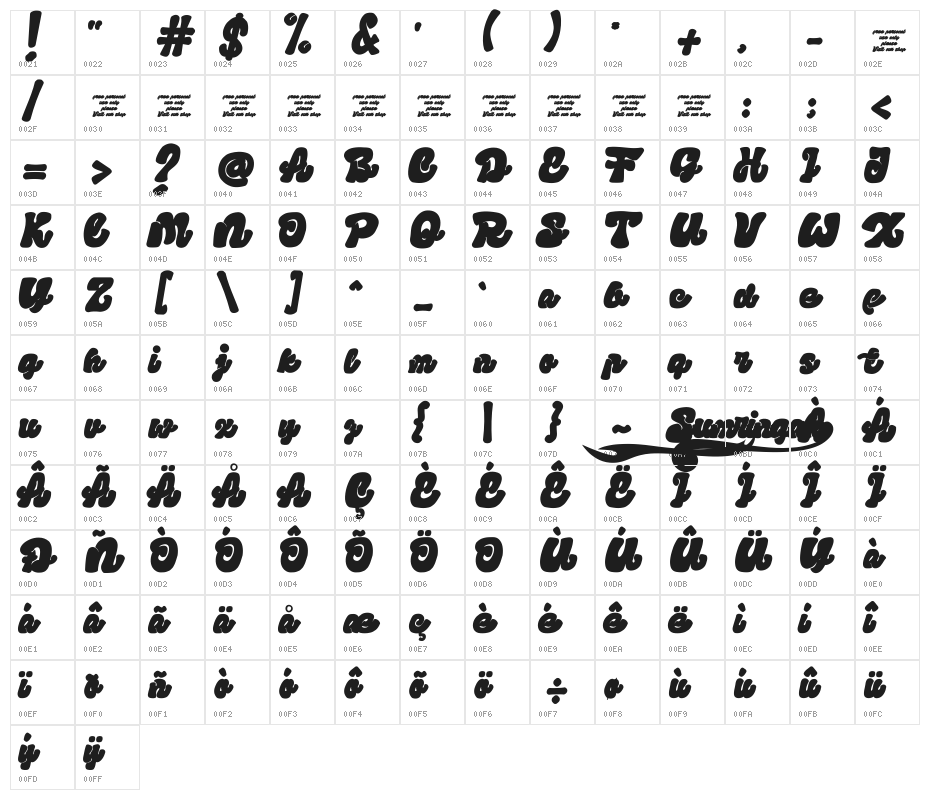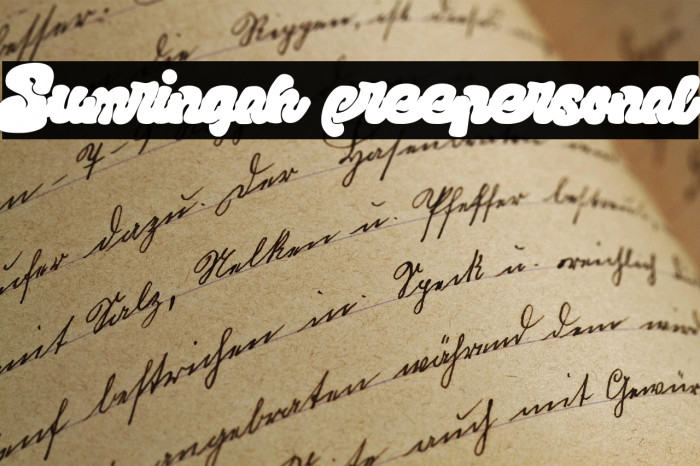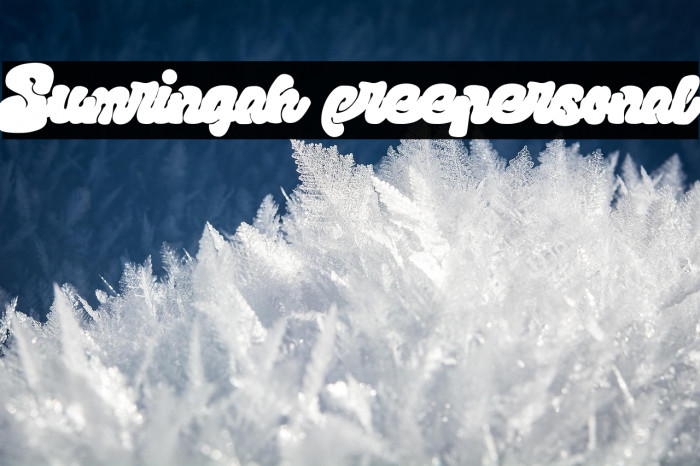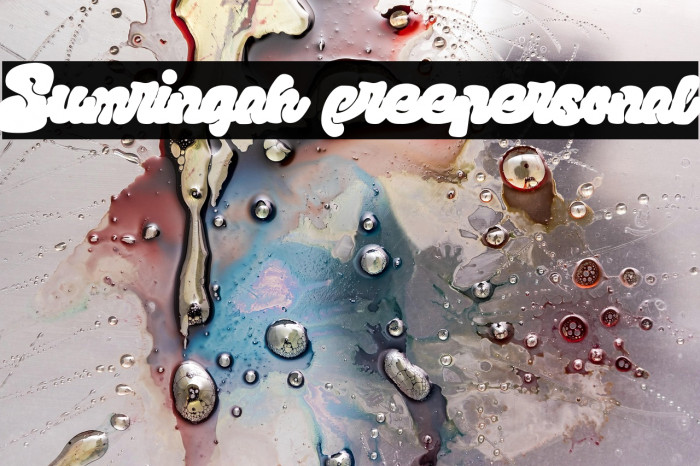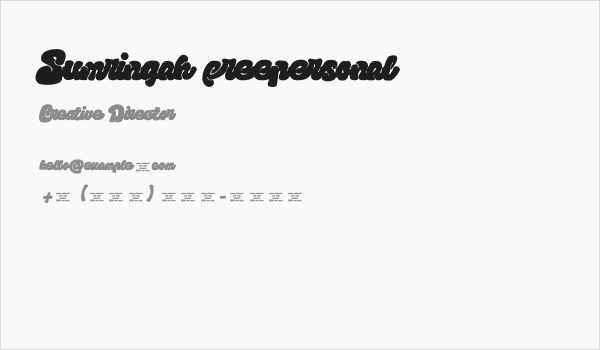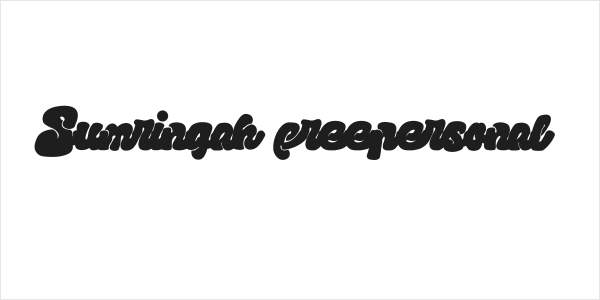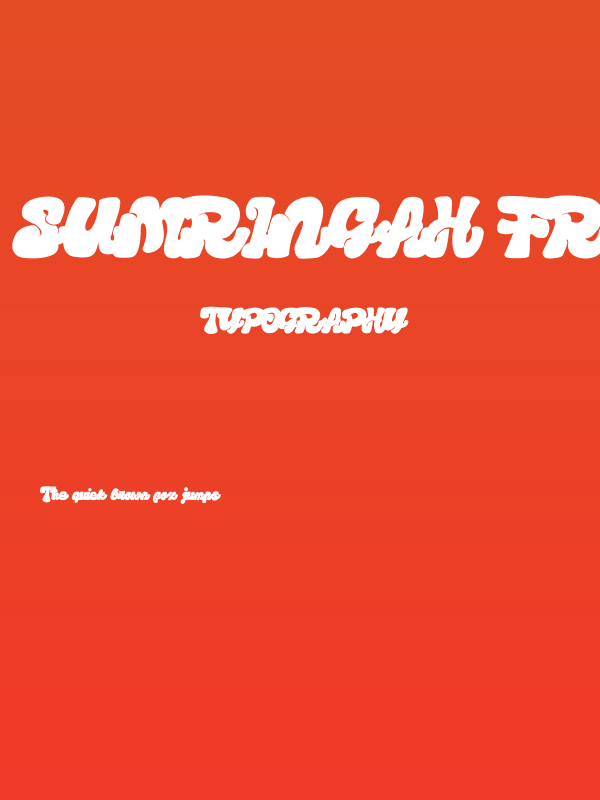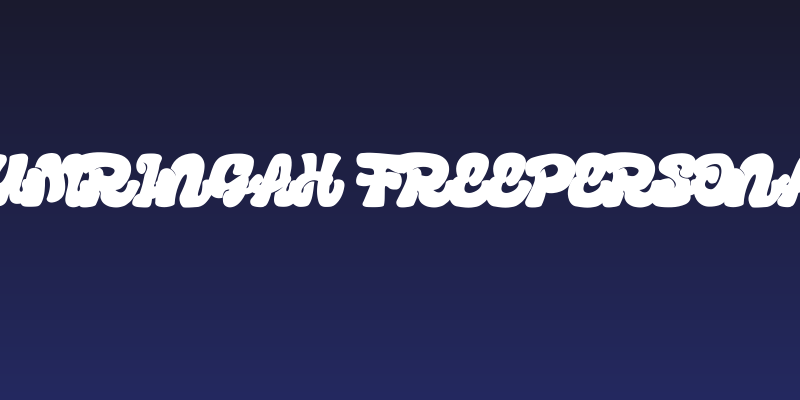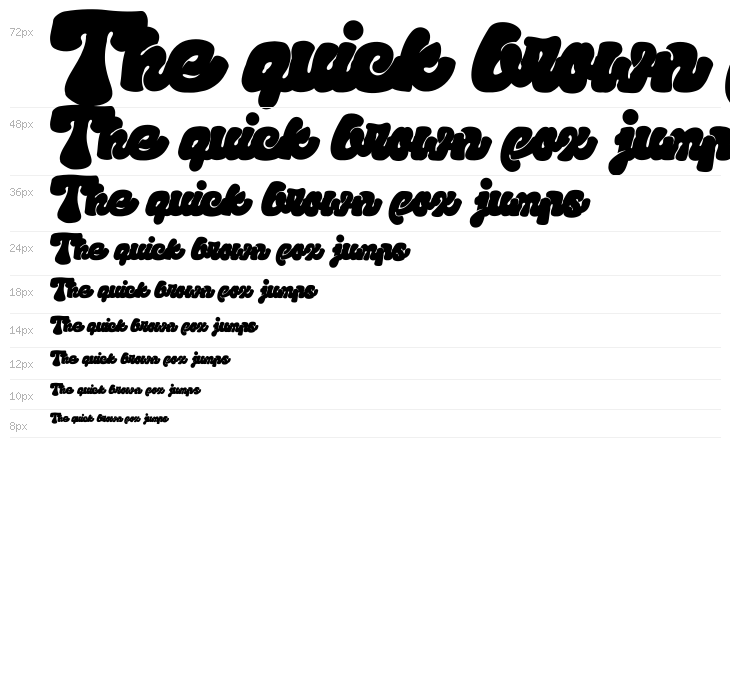
Sumringah freepersonal Font
Sumringah freepersonal Description
This font features a bold, playful style with a strong presence. The characters are interconnected, creating a fluid and dynamic appearance. The thick strokes and rounded edges give it a friendly and approachable feel. It maintains a consistent weight throughout, emphasizing its boldness. The font's unique style makes it stand out, with a touch of whimsy that adds character to any design. Its decorative nature is ideal for projects that require a fun and engaging look. The spacing between characters is tight, enhancing its cohesive appearance.
| Overall Style | Playful and Whimsical |
| Proposed Projects | Ideal for children's books, playful branding, posters, and creative invitations. |